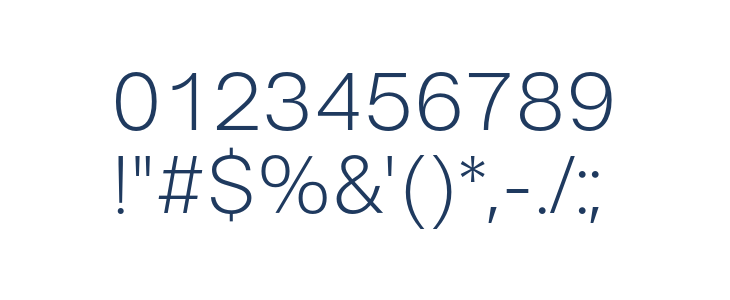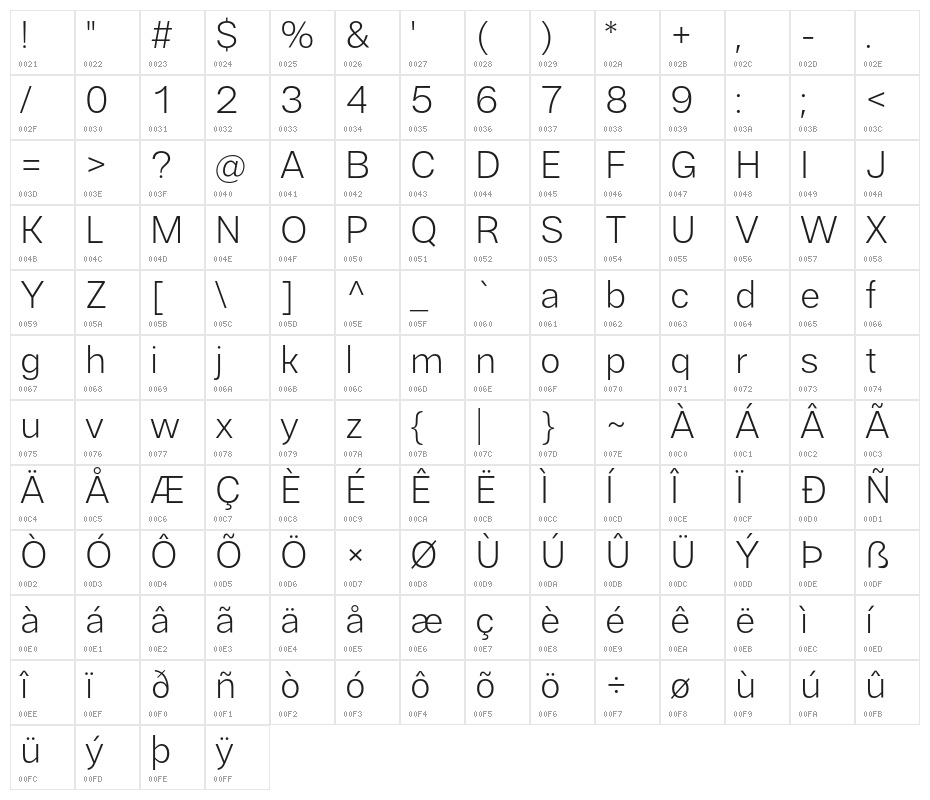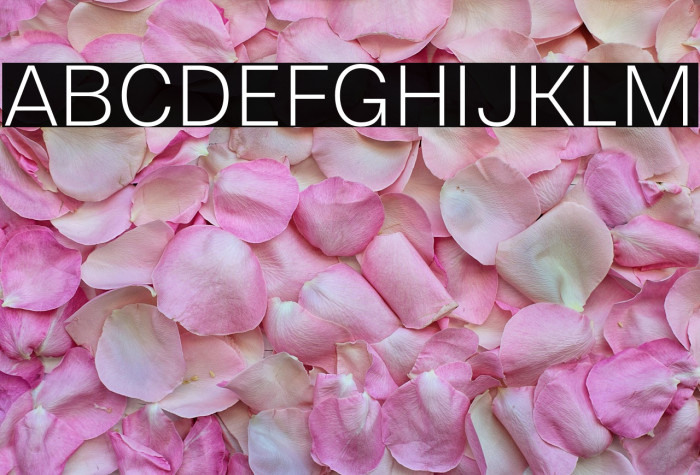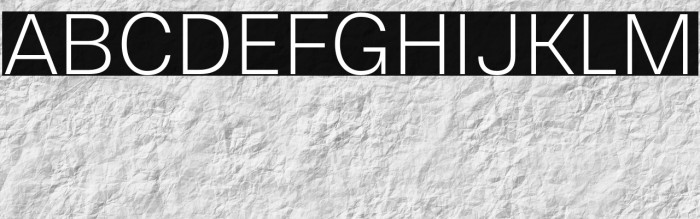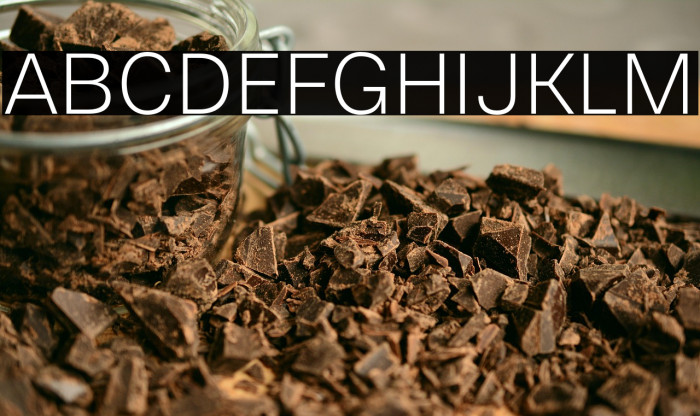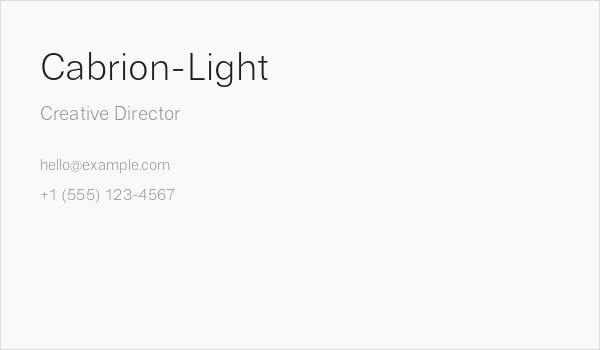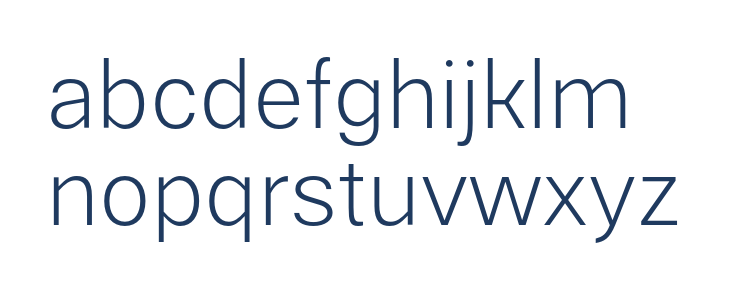
Cabrion-Light Font
Cabrion-Light Description
This font features a clean and modern sans-serif design with a light weight, offering a sleek and minimalist appearance. The characters are well-proportioned with a consistent stroke width, providing a harmonious and balanced look. The uppercase and lowercase letters are distinct and easily readable, making it suitable for various design applications. The numerals are clear and straightforward, while the special characters maintain the same aesthetic, ensuring uniformity across all elements. The overall style is contemporary, making it ideal for projects that require a fresh and uncluttered visual appeal.
| Proposed Projects | Ideal for branding, web design, editorial layouts, and corporate materials. |